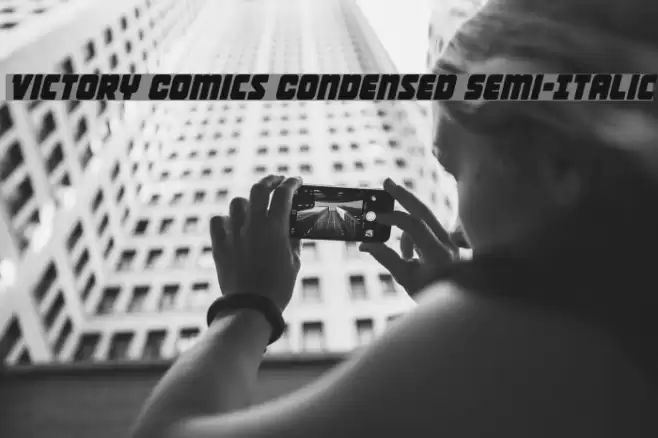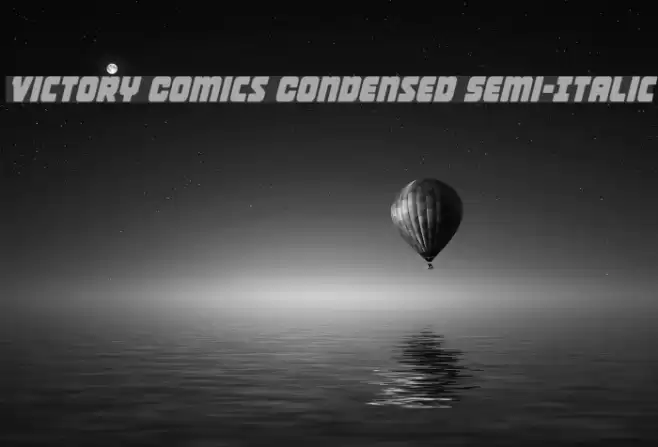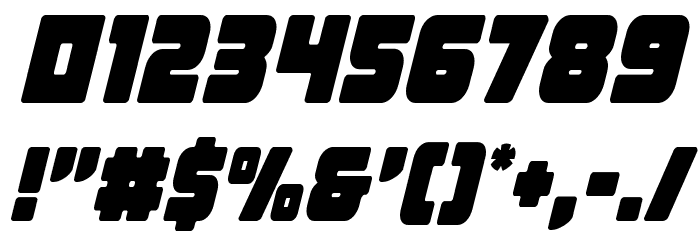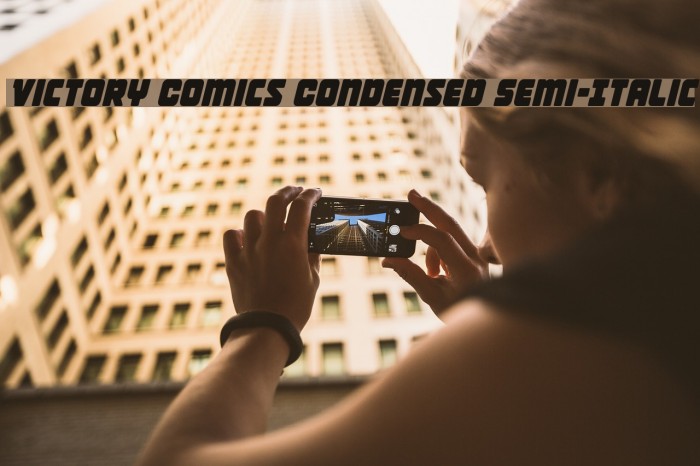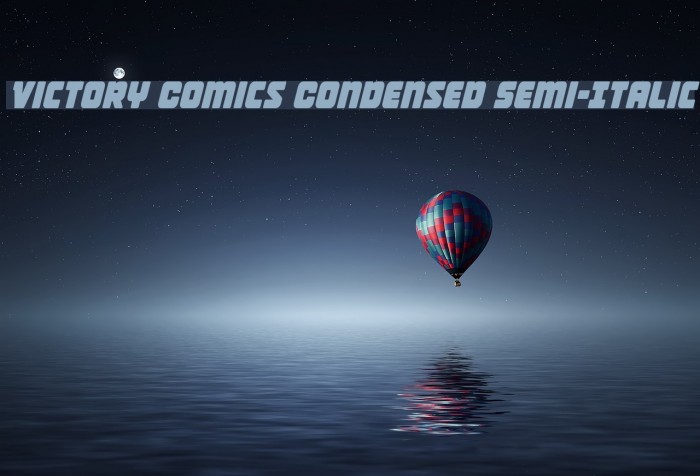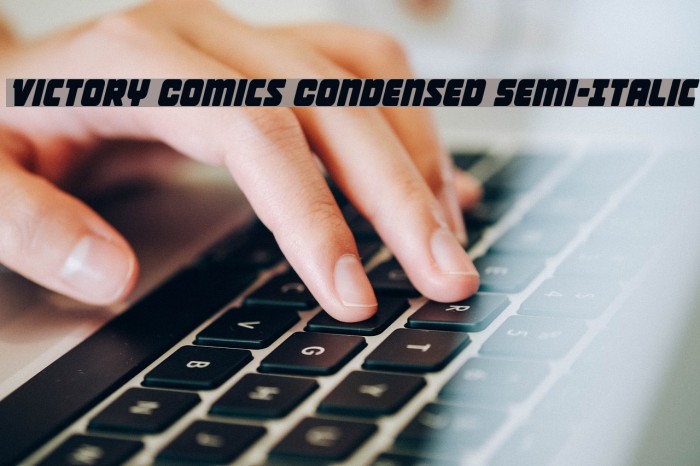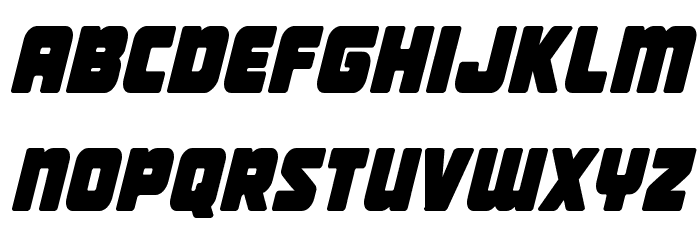
Victory Comics Condensed Semi-Italic Font
Victory Comics Condensed Semi-Italic Description
This font features a bold and dynamic style with a condensed form, giving it a strong and impactful presence. The semi-italic slant adds a sense of motion and energy, making it ideal for attention-grabbing headlines or titles. The characters are designed with a uniform stroke width, contributing to a cohesive and modern appearance. The uppercase and lowercase letters maintain a consistent style, while the numerals and special characters complement the overall design. Its boldness and condensed width make it suitable for projects that require a powerful visual statement.
A bold, condensed, semi-italic font with a dynamic and modern style from Uncategorized fonts.
- Proposed Projects: Ideal for comic book titles, posters, branding materials, and any project needing a bold, energetic typeface.